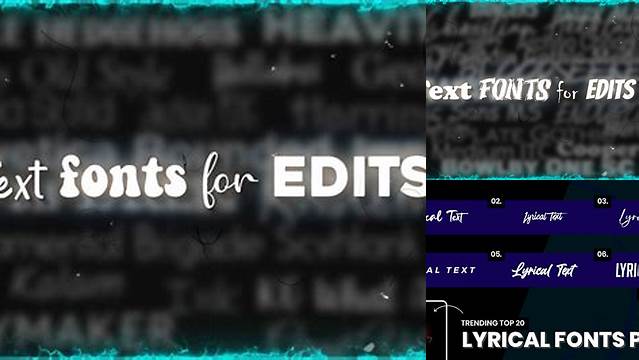
Top Text Fonts For Edits: Make Your Content Shine
Hey everyone! So, you've got your awesome content ready to go, but something's missing, right? It's all about the look, and that includes the text you use in your edits. Whether you're a graphic designer, a social media guru, or just someone who likes making cool stuff, picking the right font can seriously level up your game. We're talking about fonts that grab attention, communicate your vibe, and just make your edits look chef's kiss. Today, we're diving deep into the world of popular text fonts for edits, exploring why they work, where to find them, and how to use them like a pro. Get ready to boost your creativity and make your visuals pop!
Why Font Choice Matters for Your Edits
Alright guys, let's get real for a second. Why should you even care about which font you use in your edits? It's more than just picking something that looks pretty; it's a crucial part of your visual communication strategy. Think about it: the font you choose instantly sets a tone. A bold, sans-serif font might scream modern and professional, while a delicate script font could convey elegance and sophistication. If you're working on a social media post, you want a font that's easily readable on a small screen and grabs attention in a busy feed. For a website banner, you might need something more impactful and distinct. The right font can make your message clearer, more memorable, and way more engaging. It's like the voice of your text – is it friendly, authoritative, playful, or serious? Plus, consistent font usage across your edits builds brand recognition. If people see your signature font, they instantly know it's yours. So, investing a little time in choosing popular text fonts for edits isn't just about aesthetics; it's about effective communication and building a cohesive visual identity. It's the difference between an edit that people glance at and one they truly connect with. Seriously, don't underestimate the power of a good font!
Exploring the Allure of Serif Fonts for Edits
Let's kick things off by talking about serif fonts. You know, those little decorative strokes, or 'feet,' at the end of the main strokes of letters? They've been around forever, and for good reason – they’re classic and they carry a certain gravitas. When you’re looking for popular text fonts for edits that convey tradition, authority, or a touch of old-school charm, serifs are your go-to. Think about newspapers and books; serifs have historically been used for long-form reading because those little feet are thought to help guide the eye across the page, improving readability. This makes them fantastic for adding text overlays to blog posts, articles, or even longer captions where clarity is key. But don't think they're just for serious stuff! Modern interpretations of serif fonts can be incredibly stylish and sophisticated, perfect for branding, wedding invitations, or anything aiming for an elegant feel. Brands like Times New Roman or Garamond are classics, but there are tons of modern serifs like Playfair Display or Merriweather that bring a fresh, contemporary vibe while retaining that timeless quality. When you're editing photos for a vintage look, or designing a website for a boutique law firm, a well-chosen serif font can really nail the aesthetic. The key is to pair them thoughtfully; a delicate serif might look amazing with a minimalist design, while a bolder serif could stand up well against busy backgrounds. Experiment with different weights and styles – italics can add emphasis, while bold can make headlines really pop. Remember, even with serifs, readability on different screen sizes is still a factor, so test them out!
Mastering the Impact of Sans-Serif Fonts in Edits
Now, let's switch gears and talk about the sans-serif crew. "Sans" means "without," so sans-serif fonts are literally without those little feet serifs have. This makes them look cleaner, more modern, and super versatile. Seriously, guys, sans-serifs are everywhere in digital design for a reason. They're incredibly readable, especially on screens of all sizes, from tiny phone displays to large monitors. If you're aiming for a contemporary, minimalist, or tech-focused vibe in your edits, sans-serifs are your best friends. Think about popular text fonts for edits that dominate app interfaces, website headers, and social media graphics – chances are, they’re sans-serifs. Fonts like Open Sans, Lato, Montserrat, and Roboto are incredibly popular because they strike that perfect balance between being clean, friendly, and highly functional. They don't have any fussy details, so they don't distract from your visuals. They work great for body text, headlines, call-to-action buttons – basically, anything where clarity and a modern aesthetic are important. Need to make your Instagram story text pop without looking too formal? A clean sans-serif is probably the way to go. Want to design a logo for a startup that feels innovative and approachable? Look no further. The beauty of sans-serifs lies in their simplicity and the sheer variety available. You can find super geometric ones that feel very structured, humanist ones that are a bit warmer and more organic, or grotesque ones that are bold and utilitarian. The key is to choose one that complements your overall design and the message you're trying to convey. Don't be afraid to play with different weights (light, regular, bold, black) to create hierarchy and visual interest within your text. A bold sans-serif headline paired with a lighter weight for body text can look incredibly sharp and professional. They’re the workhorses of the font world for a reason!
The Elegant Simplicity of Script Fonts for Edits
Okay, so we've covered the classics and the moderns, but what about when you want to add a touch of personal flair, elegance, or a really handcrafted feel to your edits? That's where script fonts come in, guys! These fonts mimic the fluidity and variation of handwriting or calligraphy, and they can add a seriously beautiful and sophisticated touch. When you're thinking about popular text fonts for edits that need to feel personal, artistic, or even a bit romantic, script fonts are the stars. They're perfect for wedding invitations, greeting cards, quotes you want to make feel special, or even adding a signature-like element to your branding. Think of fonts like Pacifico, Great Vibes, or Dancing Script. These fonts can make a simple text overlay feel like a work of art. However, it's super important to use them wisely. Because they often have more intricate details and flowing lines, they can sometimes be harder to read, especially in smaller sizes or when used for long blocks of text. They generally work best for headlines, short phrases, or accent text where you want to draw attention and convey a specific mood. Imagine using a beautiful script font for a quote overlay on a stunning photograph – it adds emotion and draws the viewer in. Or maybe for the main title of a blog post about a personal story. Just remember to pair them with a simpler, more readable font (like a clean sans-serif or a classic serif) for any accompanying text to ensure your overall message is clear. It’s all about balance! Using a script font is like adding a signature flourish – make it count!
Versatility of Slab Serif Fonts in Your Edits
Alright, let's dive into another style that’s been making waves: slab serifs! These guys are like the bold, sturdy cousins of the traditional serif family. What makes them stand out? They’ve got those serifs, yeah, but they’re thicker, blockier, and often have very little bracketing (the curve where the serif meets the stem). This gives them a really strong, grounded, and often retro or industrial feel. Think of old Western movie posters or classic typewriter fonts – that’s the vibe slab serifs often bring. When you're looking for popular text fonts for edits that need to make a statement, feel sturdy, or have a bit of a vintage or even a quirky personality, slab serifs are a fantastic choice. They can be incredibly eye-catching for headlines, logos, and short bursts of text. Fonts like Rockwell, Arvo, or Roboto Slab are great examples. They have a distinctive character that can really help your edits stand out. Because of their boldness, they work well in situations where you need text to be really prominent, maybe on a T-shirt design, a sign, or a poster. They can also add a touch of ruggedness or a retro cool factor to your graphics. However, just like other display fonts, longer passages of text in slab serifs might become a bit overwhelming due to their strong presence. So, they're typically best used for headings, subheadings, or short, impactful quotes. When pairing them, you could go with a clean sans-serif for contrast, or even another slab serif in a different weight for a more cohesive, blocky look. They add a unique texture and personality that can seriously elevate your design game, giving your edits that extra punch!
The Modern Edge of Display Fonts for Edits
Okay, we're moving into the territory of display fonts, and guys, this is where things get really fun and expressive! Display fonts are basically designed to catch the eye, to be used in larger sizes for headlines, titles, logos, and short bits of text where you really want to make an impact. They're not typically meant for long paragraphs – think of them as the loud, proud, attention-grabbing members of the font family. When you're searching for popular text fonts for edits that need to convey a very specific mood, style, or personality, display fonts are your playground. They come in a wild array of styles: futuristic, grungy, decorative, quirky, elegant, retro – you name it! Brands that want to be seen as edgy, creative, or unique often lean heavily on display fonts. For example, a band might use a distressed, gothic-style display font for their album art, while a children's toy company might opt for a bubbly, playful display font. Fonts like Bebas Neue (which is technically a sans-serif but often used as a display font due to its impact), Lobster (a popular script display font), or more stylized ones like Abril Fatface can completely transform the look and feel of an edit. The key with display fonts is intentionality. You choose them because they have a strong character that enhances your visual message. They work incredibly well for social media graphics, posters, website banners, and anywhere you need text to be a central design element. Just remember the golden rule: pair them wisely! Use a simple, readable font for any supporting text. A bold, unique display font for your headline will really shine when contrasted with a clean sans-serif for the caption or details. They're all about making a statement and adding that unforgettable visual punch to your edits!
Choosing Geometric Fonts for a Clean, Structured Look
Let's talk about geometric fonts, because these guys are all about clean lines, perfect circles, and sharp angles. They're based on geometric shapes, and the result is a super modern, minimalist, and often very legible look. If you're aiming for a design that feels sleek, sophisticated, and contemporary, geometric fonts are a fantastic choice. They bring a sense of order and precision to your edits. Think about brands in tech, architecture, or fashion that want to project an image of innovation and clarity – they often turn to geometric sans-serifs. Fonts like Futura, Avenir, and Century Gothic are classic examples, and they remain incredibly popular text fonts for edits because of their timeless appeal and versatility. They don't have a lot of fuss or ornamentation, which makes them incredibly easy to read, even at smaller sizes. This makes them perfect for website interfaces, app designs, infographics, and any situation where you need text to be clear and unobtrusive, but still stylish. You can use them for everything from headlines to body text. The beauty of geometric fonts lies in their simplicity and their inherent structure. They can make even a simple quote look incredibly polished and intentional. When you're designing a logo or a brand identity, a geometric font can convey a sense of stability and modernity. For social media graphics, they offer a clean background for your images or text overlays. You can create a really strong visual hierarchy by using different weights – a bold geometric font for a headline and a lighter weight for the body text. They're the definition of understated elegance and are a staple for anyone looking to create a clean, modern aesthetic in their edits. They just work!
Exploring Humanist Sans-Serifs for Approachability
Now, let's shift gears to a slightly warmer, more approachable side of sans-serifs: the humanist sans-serifs. Unlike their strictly geometric cousins, humanist sans-serifs are inspired by the proportions and variations found in traditional handwriting and calligraphy. This means they often have more variation in stroke width, more open letterforms, and a generally softer, more organic feel. The result? They feel friendlier, more natural, and more inviting. When you're looking for popular text fonts for edits that need to convey warmth, approachability, and a personal touch, humanist sans-serifs are a brilliant option. They strike a wonderful balance between the readability of sans-serifs and a bit of the character you might find in serif or script fonts, without being overly decorative. Think about brands that want to appear trustworthy and down-to-earth, or content creators who want their audience to feel like they're chatting with a friend. Fonts like Open Sans, Lato, Source Sans Pro, and Verdana are great examples of humanist sans-serifs that are widely used and loved. They’re perfect for website body text, blog posts, email newsletters, and social media captions where you want the text to be easy to read and have a welcoming tone. They don't shout for attention; instead, they invite the reader in. Using a humanist sans-serif for your primary text ensures that your message is delivered clearly and comfortably. They can also work well for headlines if you choose a bolder weight, offering a strong yet friendly presence. They add a subtle layer of personality that makes your edits feel more authentic and less corporate. If you want your edits to feel human and relatable, definitely give these guys a try!
The Impact of Monospace Fonts on Your Edits
Let's talk about a really distinctive style: monospace fonts. What makes them unique? In monospace fonts, every single character – whether it's an 'i' or a 'W' – takes up exactly the same amount of horizontal space. This is totally different from most fonts where wider letters like 'W' or 'M' take up more room than narrow letters like 'i' or 'l'. This uniform spacing gives monospace fonts a very specific, almost retro, computer-code or typewriter look. Historically, they were essential for early typewriters and computer terminals because fixed-width spacing made alignment and layout predictable. So, when are these guys useful in your edits? Monospace fonts are fantastic for creating a nostalgic, retro, or tech-focused aesthetic. They're incredibly popular text fonts for edits that need to evoke a sense of the digital past, programming culture, or even a kind of gritty, raw feel. Think of using a monospace font like Courier New, Consolas, or Source Code Pro for quotes that are meant to look like old computer printouts, snippets of code, or even just to add a unique typographic texture to a design. They can be really effective for headlines or titles when you want something that feels bold and utilitarian. Because of their blocky, uniform nature, they can also work surprisingly well for short, impactful text elements where you want a strong visual presence. However, similar to display fonts, they're generally not the best choice for long blocks of body text, as the uniform spacing can sometimes make reading slightly more challenging over extended periods. They really shine when used intentionally to create a specific mood or visual reference. For example, if you're editing photos related to vintage computers, old film, or even urban street art, a monospace font can perfectly capture that vibe. They add a distinct character that sets your edits apart and tells a specific story.
Why Vintage and Retro Fonts Appeal to Many Edits
Alright, let's get nostalgic! Vintage and retro fonts are hugely popular because they tap into a sense of history, nostalgia, and a specific kind of cool that never really goes out of style. These fonts often draw inspiration from design eras like the 1950s, 70s, or even earlier, bringing with them unique characteristics that can make your edits feel timeless or give them a distinct retro vibe. Think of bold scripts from the 50s, groovy rounded fonts from the 70s, or classic serifs from the turn of the 20th century. When you're searching for popular text fonts for edits that need to feel authentic, charming, or transport your audience back in time, vintage and retro styles are your best bet. They’re perfect for creating posters, album art, branding for businesses that want to evoke a classic feel, or even just adding a unique touch to your personal projects. Fonts like Lobster (again, popular for its retro script feel), Pacifico, ChunkFive (a strong slab serif), or various distressed fonts can instantly give your edits that old-school character. The appeal often lies in the details: the textures, the unique letter shapes, the boldness, or the specific decorative elements that define a particular era. Using these fonts can help your content stand out in a sea of modern designs. They tell a story and evoke an emotional connection by referencing a past aesthetic that many people find appealing. However, like many stylized fonts, they can sometimes be challenging for long-form reading. Therefore, they are most effective when used for headlines, titles, short quotes, or as key design elements where their character can be fully appreciated without sacrificing readability. Pair them with more subdued, modern fonts to create a nice contrast and ensure your message remains clear. Embracing vintage and retro fonts is like giving your edits a unique personality with a built-in sense of history and style!
The Power of Bold Fonts for Capturing Attention
Let's talk about making a statement, guys! Bold fonts are your secret weapon for grabbing attention instantly. These fonts are characterized by thicker, heavier strokes compared to their regular or light counterparts. This visual weight makes them stand out significantly, cutting through the visual clutter, especially in busy designs or on small screens. When you're looking for popular text fonts for edits that need to command presence and ensure your message isn't missed, bold fonts are the way to go. They are essential for headlines, titles, calls to action, and any text you want to emphasize. Think about the impact of a bold sans-serif like Bebas Neue or Oswald, or a strong slab serif like Rockwell Bold. These fonts are designed to be seen and read easily from a distance. In graphic design, using bold fonts creates a clear visual hierarchy, guiding the viewer's eye to the most important information first. They can add energy and impact to your designs, making them feel more dynamic and powerful. For social media posts, a bold headline can stop someone mid-scroll. On a website, a bold call-to-action button is much more likely to be clicked. However, it's important to use bold fonts strategically. Overusing them can make your design feel cluttered and overwhelming. They work best when used as accents or for key pieces of information. Pairing a bold headline with a lighter weight font for the body text creates excellent contrast and improves readability. Remember that the 'boldness' can vary greatly between font families, so choose one that fits the overall mood of your edit. Whether you're aiming for a modern, industrial, or classic look, there's a bold font out there to make your text truly impactful.
Utilizing Thin and Light Fonts for Elegance
On the flip side of bold, let's explore the delicate beauty of thin and light fonts. These fonts, characterized by their fine, slender strokes, offer a sense of elegance, sophistication, and minimalism. Unlike their bold counterparts that shout for attention, thin and light fonts whisper with refinement. When you're seeking popular text fonts for edits that need to convey a sense of luxury, airiness, or understated class, these lighter weights are your best bet. Think of high-end fashion brands, minimalist websites, or editorial designs – they often employ thin and light fonts to achieve a chic and sophisticated aesthetic. Fonts like Lato Light, Montserrat Thin, Open Sans Light, or delicate serifs like Playfair Display in its lighter weights can add a touch of grace to your designs. They are excellent for adding text overlays to beautiful imagery where you don't want the text to overpower the photo. They work wonderfully for captions, secondary headlines, or any text that needs to feel subtle yet stylish. The key to using thin and light fonts effectively is ensuring they have enough contrast with their background. On a dark background, they can be very legible and striking. However, on very light or busy backgrounds, they can sometimes disappear or become difficult to read. Therefore, it's often best to use them for shorter text elements or ensure they have a strong, solid background behind them. They also pair beautifully with bolder fonts, creating a dynamic contrast that highlights both styles. Using a thin font for a subtitle below a bold headline can create a very polished and professional look. They add an element of delicate artistry to your edits, making them feel more curated and high-end. These fonts are perfect for when you want your text to be stylish without being loud.
The Charm of Condensed Fonts for Space-Saving Edits
Let's talk about a font style that's brilliant for when you're a bit tight on space, but still want your text to look good: condensed fonts. Also known as narrow fonts, these guys are designed with compressed letterforms, meaning they take up less horizontal space than their standard-width counterparts. This makes them incredibly useful for fitting more text into a limited area without sacrificing legibility, or for creating a specific, impactful visual style. When you're searching for popular text fonts for edits where space is a premium, or you want to achieve a tall, striking typographic effect, condensed fonts are a lifesaver. They’re particularly popular for headlines, signage, captions in tight spaces, or even for creating a sleek, modern, and somewhat utilitarian look. Fonts like Bebas Neue (which is very condensed), Oswald, or Roboto Condensed are widely used because they are highly functional and stylish. Their compressed nature can give text a sense of urgency or efficiency, which can be great for certain types of content. Think about using a condensed font for a list of ingredients on a recipe card, the title of a sports event poster, or even in the navigation bar of a website where space is limited. They can create a strong vertical emphasis, making text look impactful without spreading out too much. The key with condensed fonts is to ensure they remain readable. While they are designed for compactness, avoid using extremely narrow versions for body text, as this can strain the eyes. They work best for display purposes or shorter text segments. Pairing a condensed font with a more standard-width font can create a pleasing contrast and visual interest. For example, a condensed headline could be complemented by a regular-width sans-serif for the supporting text. They offer a unique way to add typographic flair and solve space constraints simultaneously, making them a valuable tool in any editor's toolkit!
Exploring Handwritten Fonts for a Personal Touch
We've touched on script fonts, but let's dive deeper into the broader category of handwritten fonts. These fonts aim to replicate the look and feel of handwriting, but they can range from elegant calligraphy (like some scripts) to more casual, everyday handwriting styles. The magic of handwritten fonts lies in their ability to inject personality, warmth, and a very human touch into your edits. They make your text feel less like something generated by a machine and more like a personal message, a note, or a unique signature. When you're looking for popular text fonts for edits that need to feel authentic, creative, or intimate, handwritten fonts are an excellent choice. They are perfect for invitations, thank-you notes, personal blogs, creative journaling, or adding a unique flair to quotes and social media posts. Fonts like Caveat, Permanent Marker, Amatic SC, or Nanum Pen Script offer different vibes, from neat and tidy to bold and scribbled. They can make your edits feel instantly more approachable and relatable. The key to using handwritten fonts effectively is to choose one that matches the specific tone you want to convey. A neat, cursive handwritten font might be great for a wedding announcement, while a bolder, more casual handwritten font could be perfect for a fun social media graphic. Like script fonts, they can sometimes be less legible in smaller sizes or for long text, so they are often best used for headlines, titles, or short phrases where their charm can shine without compromising clarity. Pairing them with a clean, simple font for body text ensures that your message remains accessible. Handwritten fonts are all about adding that personal, artistic touch that makes your edits truly unique and memorable.
The Rise of Variable Fonts in Modern Edits
Alright guys, let's talk about a really cool, relatively new development in the font world: variable fonts. These are a game-changer because, instead of having separate font files for regular, bold, italic, etc., a single variable font file contains all these variations and much more! Think of it like a slider where you can adjust the weight, width, slant, and other characteristics of a typeface smoothly and precisely. This offers incredible flexibility and efficiency for designers and editors. When you're exploring popular text fonts for edits that need adaptability and fine-tuned control, variable fonts are the future. They allow you to create subtle typographic nuances that weren't possible before. For example, you could have a headline that subtly increases in weight from left to right, or a paragraph that slightly adjusts its width for perfect justification. Brands and designers are increasingly adopting variable fonts because they can reduce file sizes (improving website performance) and offer a much wider range of design possibilities within a single font. While they might sound complex, using them is often quite straightforward in modern design software. You'll find features that let you easily adjust these 'axes' of variation. Popular examples include fonts like Roboto Flex, Inter Variable, or Source Serif Variable. They can be used for almost anything, from crisp body text to dynamic headlines, offering a level of customization that makes your edits feel truly bespoke. As technology advances, expect to see many more variable fonts becoming available, offering even more creative potential for your designs. They’re a powerful tool for achieving precise typographic control and a modern aesthetic.
Optimizing Font Pairings for Maximum Readability and Appeal
So, you've got a bunch of awesome fonts to choose from, but how do you make them work together? That's where font pairing comes in, and guys, mastering this skill is crucial for making your edits look professional and cohesive. Font pairing is essentially about combining two or more fonts in a way that creates visual interest, establishes a clear hierarchy, and enhances readability. The goal is usually to pair a more distinctive or decorative font (like a headline font) with a simpler, highly readable font (like a body text font). This creates contrast and ensures that your message is communicated effectively. When you're looking for popular text fonts for edits, think about how they'll interact. A common and effective strategy is to pair a serif font with a sans-serif font. For instance, a bold, elegant serif font for your main title could be paired with a clean, neutral sans-serif for the body text. This contrast highlights the strengths of each typeface and creates a pleasing visual balance. Another approach is to use different weights or styles within the same font family. For example, using a bold version of a sans-serif for headlines and a regular or light version for body text provides consistency while still establishing clear hierarchy. The key principles to remember are contrast, hierarchy, and harmony. Ensure there's enough contrast between your chosen fonts so they don't look too similar or clash. Establish a clear hierarchy so readers know what's most important. And aim for harmony – the fonts should complement each other and contribute to the overall mood and message of your edit. Experimentation is key! Try different combinations, see what looks good to your eye, and always consider the context of your edit. A well-executed font pairing can elevate your design from amateur to absolutely pro.
Accessibility Considerations with Font Choices in Edits
Let's talk about something super important that often gets overlooked: accessibility. When we choose fonts for our edits, we're not just thinking about how they look; we're also thinking about making sure everyone can read and understand our content. Accessibility in typography means selecting fonts and using them in ways that cater to a wide range of users, including those with visual impairments, dyslexia, or other reading difficulties. So, when you're browsing through those popular text fonts for edits, keep accessibility in mind. Generally, sans-serif fonts are often recommended for body text in digital interfaces because they tend to be cleaner and less visually cluttered, which can aid readability. Fonts with distinct letterforms, clear distinctions between similar characters (like 'I', 'l', and '1'), and open apertures (the partially enclosed negative space in letters like 'c' or 'e') are also beneficial. Avoid overly decorative, condensed, or script fonts for essential information, as these can be difficult to decipher for many people. Furthermore, the size and spacing of your text play a huge role. Ensure your font size is large enough to be easily read without squinting, and use adequate line spacing (leading) and letter spacing (tracking) to prevent text from feeling cramped. High contrast between the text color and the background is also crucial. Think about users who might be viewing your content in bright sunlight or who have low vision. Choosing accessible fonts and implementing good typographic practices isn't just about compliance; it's about inclusivity and ensuring your message reaches the widest possible audience. It shows you care about your readers, and that's always a win!
Leveraging Free Font Resources for Your Edits
Awesome news, guys: you don't need to break the bank to get access to amazing fonts! The internet is brimming with incredible resources offering high-quality, free fonts that are perfect for all sorts of edits. These platforms are goldmines for designers, content creators, and anyone looking to elevate their visuals without a hefty price tag. When you're hunting for popular text fonts for edits, always check out these free repositories first. Google Fonts is arguably the king of free font resources. It offers a massive library of open-source fonts, all curated and easily accessible. You can filter by style, popularity, and more, and they’re optimized for web and print use. Another fantastic place is Font Squirrel, which specifically curates free fonts that are licensed for commercial use – a big plus if you're creating content for a business or client. DaFont and Behance also host a huge number of free fonts, though you always need to double-check the licensing terms, as some might be free for personal use only. Utilizing these free resources allows you to experiment with a wide variety of styles – from elegant serifs to trendy display fonts – without any financial commitment. This is particularly helpful when you're trying out new design trends or developing a specific aesthetic for a project. You can download, install, and start using these fonts immediately in your design software. The sheer volume of options means you can find the perfect font for almost any need, ensuring your edits always look fresh and professional. Just remember to always respect the license agreements provided by the font creators.
Where to Find Premium Fonts for Professional Edits
While free fonts are fantastic, sometimes you need that extra edge, that unique character, or that specialized license that only premium fonts can offer. If you're aiming for a truly professional finish or working on projects with specific branding requirements, investing in premium fonts is often a smart move. These fonts are typically crafted with greater attention to detail, offer more extensive character sets (including alternate glyphs and ligatures), and come with robust commercial licenses. When you're searching for popular text fonts for edits that need to convey a high level of sophistication and polish, premium font foundries are where you'll find them. Websites like MyFonts, Adobe Fonts (included with Creative Cloud subscriptions), FontShop, and Creative Market are excellent places to start. Adobe Fonts, in particular, is a treasure trove, offering a vast library of high-quality fonts that you can use seamlessly across Adobe applications. Creative Market offers fonts from independent designers, often with unique and artistic styles. MyFonts has an enormous selection, covering every imaginable style and often featuring sales. Premium fonts might seem like an added expense, but they can significantly enhance the perceived value and professionalism of your edits. They often include extensive family options (thin, light, regular, medium, bold, black, italics for each) which allow for greater typographic control and hierarchy within your designs. Plus, purchasing a license means you're supporting the designers who create these beautiful tools. For clients, using premium fonts can also signal a commitment to quality and brand consistency. So, while free options are great for experimentation, don't hesitate to explore premium sources when your edits demand that extra level of distinction and quality.
Understanding Font Licenses: What You Need to Know
Alright, let's get into the nitty-gritty of font licenses, because this is super important, guys, especially if you're using fonts for anything beyond personal projects. A font license is basically the legal agreement that dictates how you can use a particular typeface. Think of it like permission from the font designer or foundry. Ignoring license terms can lead to legal trouble, so it’s crucial to understand the basics. When you download fonts, especially from free resources, you'll often encounter different license types. The most common distinction is between personal use and commercial use. Personal use licenses allow you to use the font for your own private projects – like a personal blog or social media posts that aren't promoting a business. Commercial use licenses, on the other hand, are required if you're using the font for anything that generates revenue or promotes a business. This includes website designs for clients, marketing materials, logos, merchandise, and more. Some licenses are very specific about where and how the font can be used (e.g., web use vs. desktop use vs. app embedding). Always read the license agreement carefully! Check for restrictions on modifying the font, distributing it, or using it in large volumes of copies. Premium fonts usually come with clearly defined commercial licenses, but even then, understand the terms. Are you allowed to embed it in a PDF? Can you use it for a logo that will be trademarked? Knowing these details prevents headaches down the line. Respecting font licenses ensures you're supporting the creators and operating legally, allowing you to confidently use popular text fonts for edits across all your endeavors.
Tips for Choosing the Right Font for Specific Edits
So, you've got the knowledge about different font styles, where to find them, and the legalities. Now, how do you actually pick the perfect font for your specific edit? It really comes down to context and intent, guys. The first thing to consider is the message and the mood you want to convey. Are you going for playful and energetic, or serious and sophisticated? This will immediately guide you towards certain font categories. For example, a wedding invitation would lean towards elegant scripts or refined serifs, while a tech startup's branding might call for clean, geometric sans-serifs. Another crucial factor is the medium. A font that looks great as a large headline on a poster might be illegible as small text on a mobile app. Always test your font choices in the context where they'll be viewed. Readability is paramount, especially for body text. Ensure your chosen font is clear and easy to read at the intended size. Consider the brand identity if you're working for a client or building your own brand. Consistency is key. Does the font align with the brand's existing personality and values? Don't be afraid to experiment with font pairings to create contrast and hierarchy, but always ensure the combination feels harmonious. Finally, trust your gut! While there are best practices, design is also subjective. If a font feels right and effectively communicates your message, it’s probably the right choice. Think about the overall aesthetic, the target audience, and what you want your edit to feel like. Choosing the right font is an art, but with these tips, you’ll be creating beautiful, impactful edits in no time!
The Future of Typography in Digital Edits
What's next for fonts in the world of digital edits? It's an exciting time, guys, because typography is constantly evolving, driven by new technologies and changing design trends. We're already seeing the impact of variable fonts, which offer unprecedented flexibility and control, allowing for incredibly nuanced typographic expression. Expect to see even more sophisticated implementations of variable font technology, enabling dynamic text effects and highly customized typographic experiences. Another area of growth is AI in font creation and design. AI tools are starting to assist designers in generating new font styles, suggesting pairings, and even optimizing text for readability and accessibility across different platforms. This could lead to a wave of innovative and perhaps even unexpected typographic forms. Furthermore, as augmented reality (AR) and virtual reality (VR) become more mainstream, typography will need to adapt. Fonts will need to be designed to work effectively in 3D space, considering legibility from various angles and distances. This opens up fascinating new possibilities for how we interact with text. We're also seeing a continued emphasis on personalization and customization. Fonts that allow users to easily tweak their appearance or integrate seamlessly with user-generated content will likely become more prevalent. The core principles of good typography – clarity, hierarchy, and aesthetics – will remain, but the tools and possibilities for achieving them are expanding rapidly. Keeping an eye on these trends will help you stay ahead of the curve and ensure your digital edits remain fresh, engaging, and effective in the years to come. It’s all about making text work even harder and smarter!
Final Thoughts: Making Your Edits Stand Out with Typography
Alright team, we've covered a lot of ground today, from the classic charm of serifs to the cutting-edge flexibility of variable fonts. The main takeaway? Your font choices are a powerful tool in your editing arsenal. They don't just fill space; they convey emotion, establish tone, guide the reader, and significantly impact the overall success of your visual content. Whether you're designing a social media graphic, editing a photograph, or crafting a website banner, the right typography can make all the difference between an edit that gets lost in the noise and one that truly resonates. Remember the importance of readability, the power of font pairings, and the need to consider accessibility for all your viewers. Don't be afraid to experiment with different styles – explore the vast libraries of free and premium fonts available, but always be mindful of licensing. Use bold fonts to create impact, light fonts for elegance, condensed fonts for efficiency, and handwritten or script fonts for that personal touch. By paying attention to these details and choosing popular text fonts for edits that align with your message and aesthetic, you can elevate your work from good to great. So go out there, experiment, and make your edits shine with the magic of great typography! Happy editing, everyone!